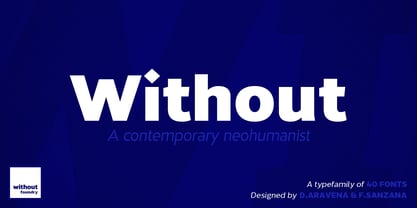
Without Sans Font
Without Sans Font is perfect for various design applications including minimalist brand identities, clean architectural presentations, contemporary editorial layouts, modern tech company materials, progressive art gallery signage, sleek product packaging, refined corporate communications, avant-garde fashion brands, conceptual design projects, and sophisticated digital interfaces. This refined typeface excels in projects requiring pure minimalism and contemporary sophistication that communicates clarity, innovation, and the beauty of essential design stripped to its fundamental elements.
What makes Without Sans Font so exciting is its masterful embodiment of minimalist design philosophy through letterforms that achieve maximum impact with absolute economy of means. The font features ultra-clean geometric construction that eliminates all unnecessary elements, precisely calibrated spacing that creates perfect visual balance, and essential character forms that communicate with crystal clarity. Its distinctive minimalist character and sophisticated restraint make it perfect for brands seeking to communicate precision, intelligence, and the kind of refined thinking that appreciates the power of pure, unadorned design.
Without Sans Font family includes essential weight variations from light to bold, each maintaining the signature minimalist character while providing subtle hierarchy options for clean design systems. The family focuses on fundamental typographic needs without excessive variations, reflecting the font's essential design philosophy. Additional character sets and professional features enhance functionality while maintaining the pure, minimal aesthetic that defines the typeface's conceptual approach.
Whether you're developing contemporary brands, minimalist communications, or conceptual design projects, Without Sans Font Free Download provides essential typography that celebrates the power of reduction and the beauty of fundamental design principles. This typeface transforms complex communications into clear, essential statements that reflect sophisticated design thinking and contemporary aesthetic awareness. The font's minimalist appeal makes it particularly effective for design-conscious brands, architectural firms, and contemporary art institutions that value conceptual clarity and essential design principles.
Without Sans Font stands out through its philosophical commitment to essential design that achieves maximum communication with minimum visual noise. Its precisely engineered simplicity and conceptual purity ensure that content takes precedence while maintaining distinctive character through intelligent restraint. From conceptual brand systems to editorial design, this font provides designers with tools to create communications that celebrate the beauty of essential design and demonstrate sophisticated understanding of minimalist typography through pure, uncompromising letterforms that honor the principle of essential communication.